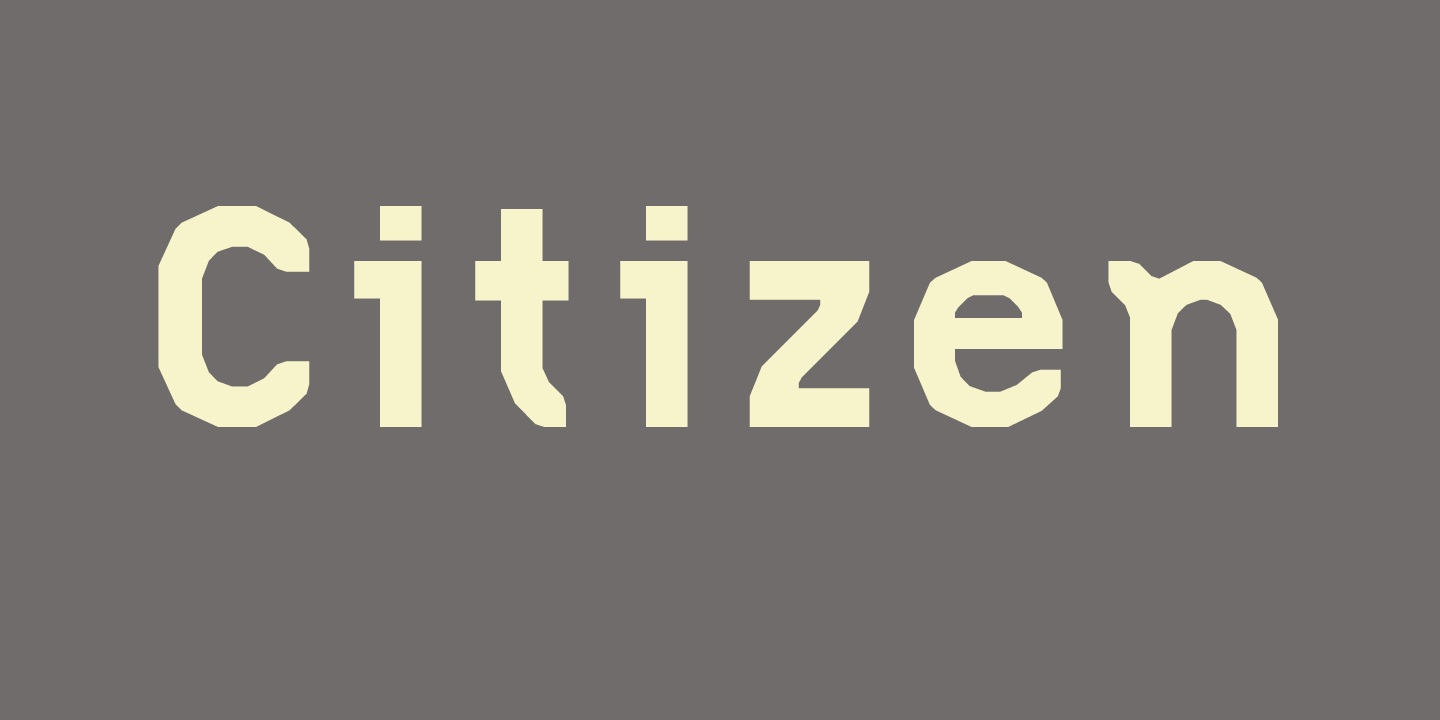
Citizen
Designed by Zuzana Licko, Citizen is a sans serif font family. This typeface has two styles and was published by Emigre.
With the introduction of laser printers, the "smooth" printing option was provided as a shortcut to increasing the resolution of bitmaps from screen to printer.
The smooth printing option provided by the early Macintosh processed 72 dpi bitmaps into 300 dpi bitmaps for laser printers; seemingly polishing stair step pixels into smooth diagonals.
This was the inspiration for the Citizen.
Licko used straight line segments to approximate the features of smooth printing, applied to her earlier Lo-Res Twelve bitmap design.
With the introduction of laser printers, the “smooth” printing option was provided as a shortcut to increasing the resolution of bitmaps from screen to printer. The smooth printing option provided by the early Macintosh processed 72 dpi bitmaps into 300 dpi bitmaps for laser printers; seemingly polishing stair step pixels into smooth diagonals. This was the inspiration for the Citizen. Licko used straight line segments to approximate the features of smooth printing, applied to her earlier Lo-Res Twelve bitmap design. Later, this progression would develop into the Triplex Sans family.